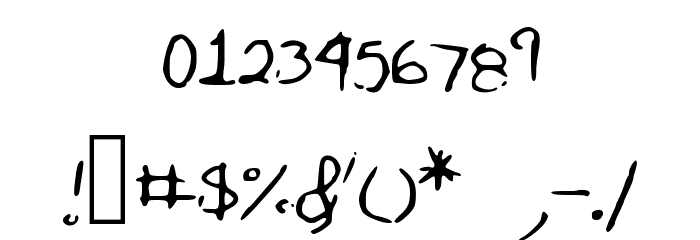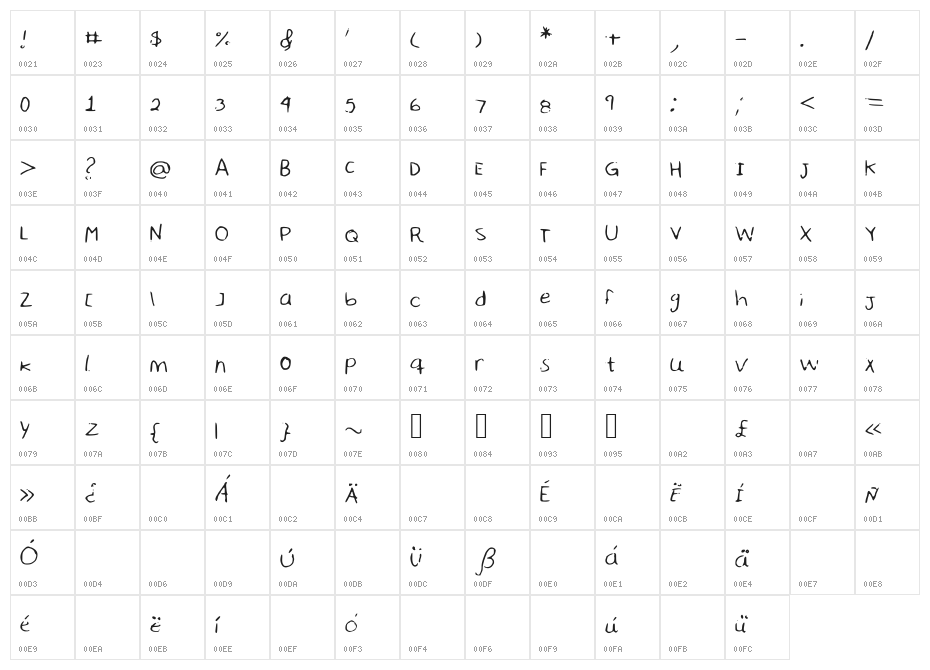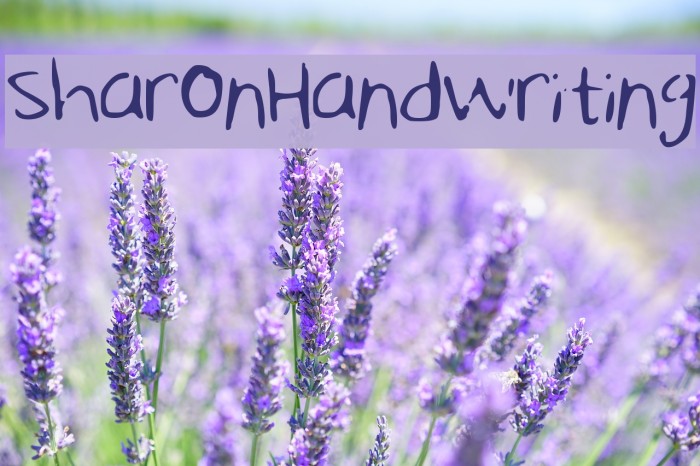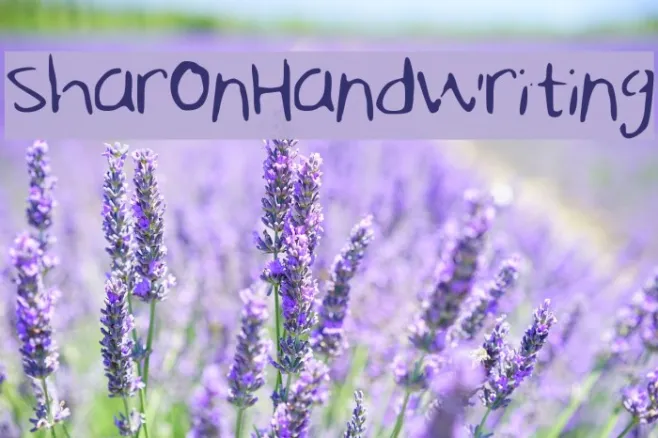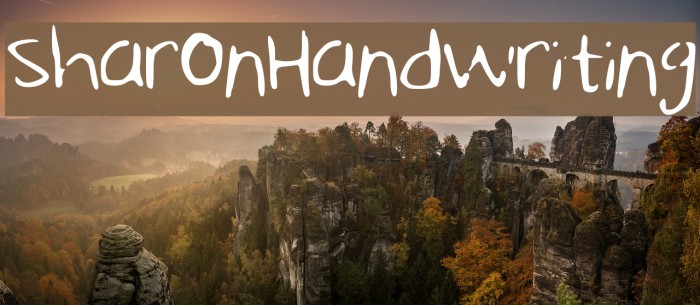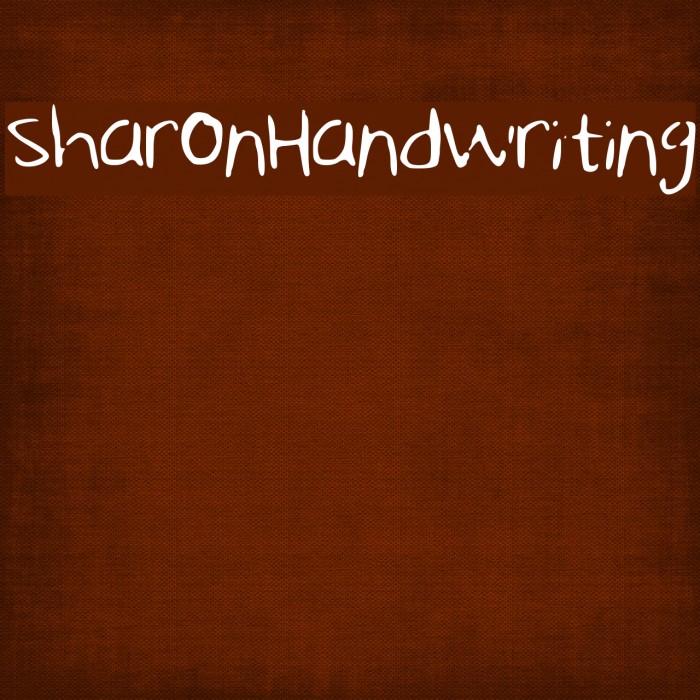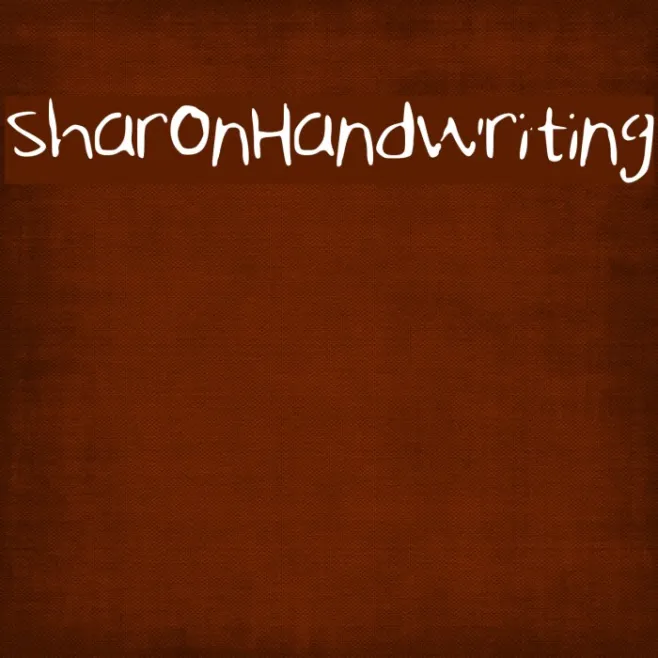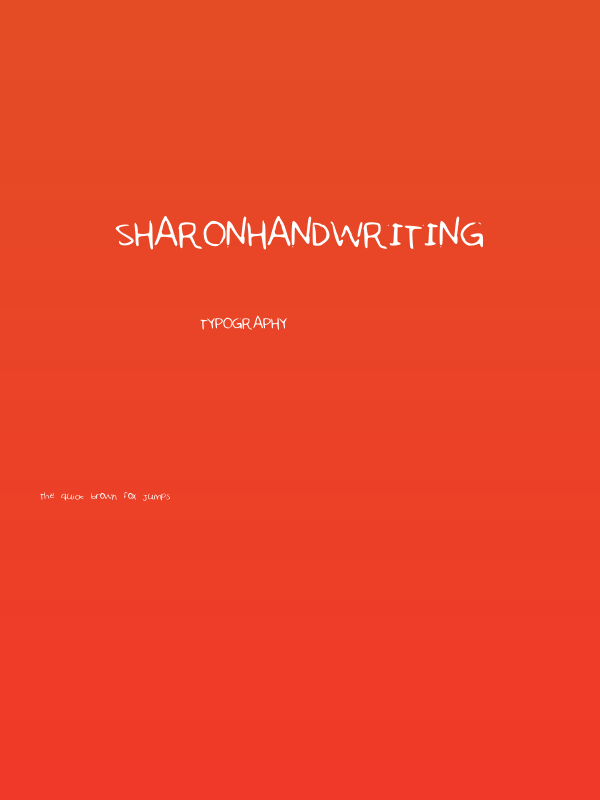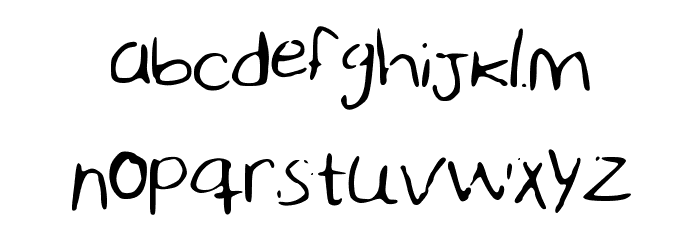
SharonHandwriting Font
SharonHandwriting Description
This font exudes a casual and personal touch, reminiscent of authentic handwriting. The characters are slightly irregular, adding to the charm and uniqueness of the style. The strokes are varied in thickness, giving it a dynamic and lively appearance. The uppercase letters are bold and confident, while the lowercase letters maintain a friendly and approachable feel. Numbers and special characters are consistent with the overall handwritten theme, making them versatile for various uses. The font's playful nature makes it ideal for projects that require a personal or informal tone.
| Use Case | Greeting cards, Invitations, Informal branding |
| Proposed Projects | Ideal for personal notes, greeting cards, invitations, scrapbooking, and informal branding projects. |